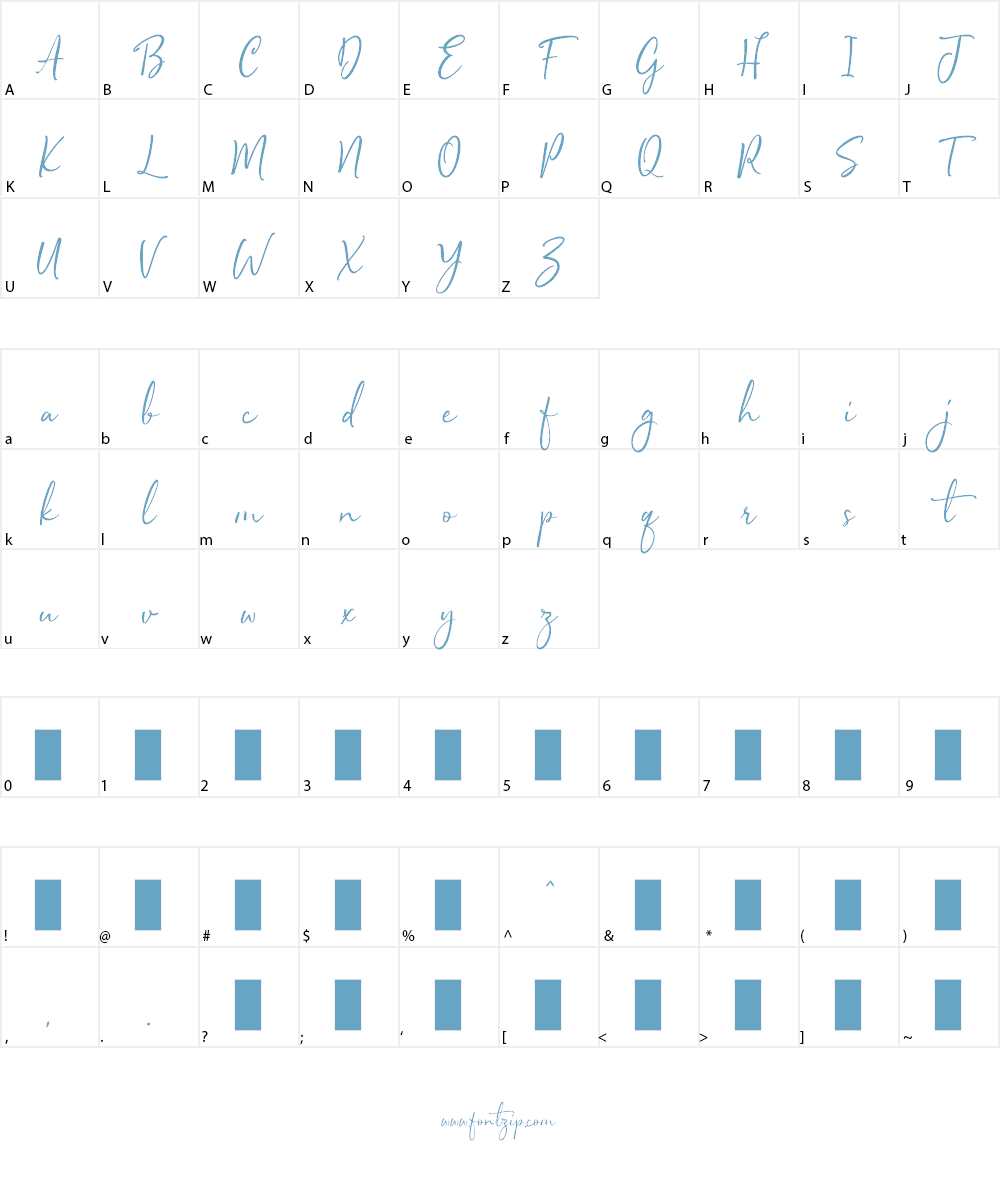
Introducing the Sophistica Stylish Font a classy, fun and fabolous dreamy font inspired by luxury fashion. Sophistica contains 10 Classy Variations, opentype features such as stylistic alternates, swashes & massive ligatures.